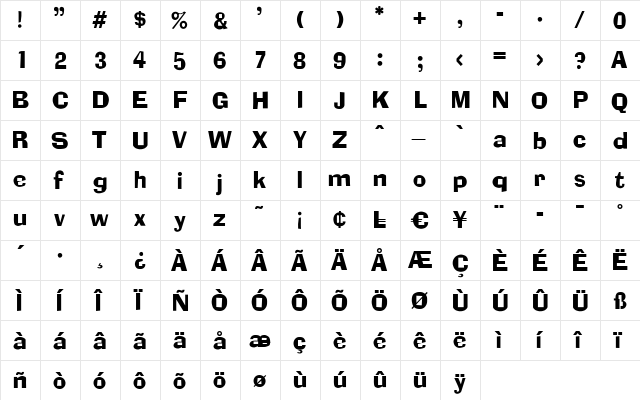
AlexisBecker Regular
Design Context for AlexisBecker Typeface
AlexisBecker takes a measured approach to typography — its balanced proportions and neutral character make it a reliable workhorse for both digital and print work.